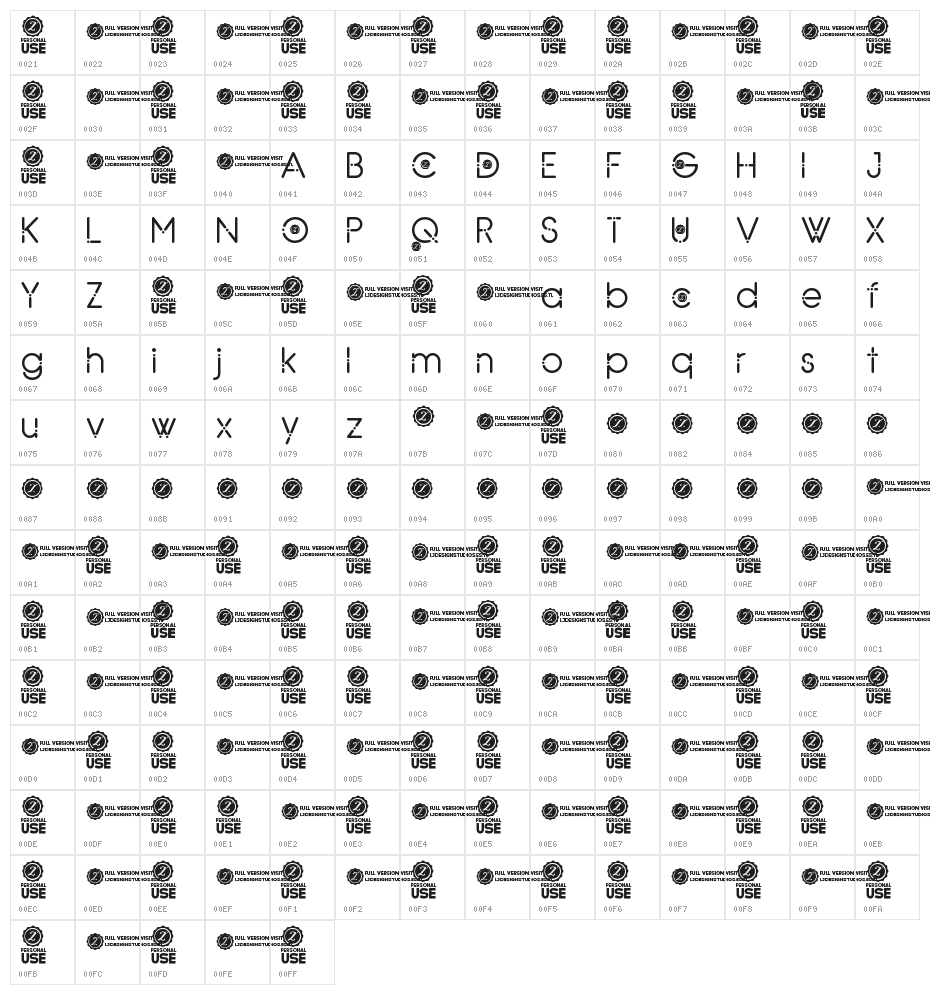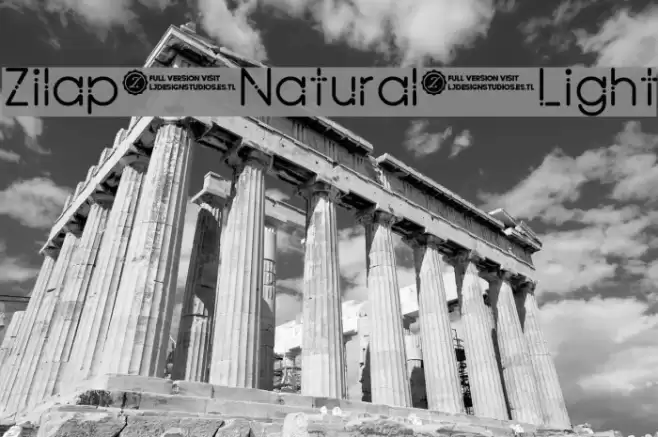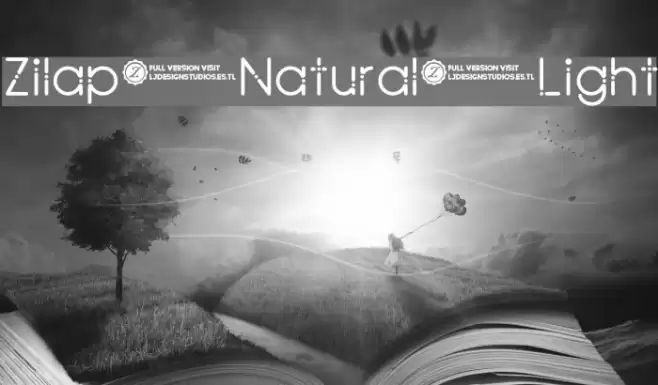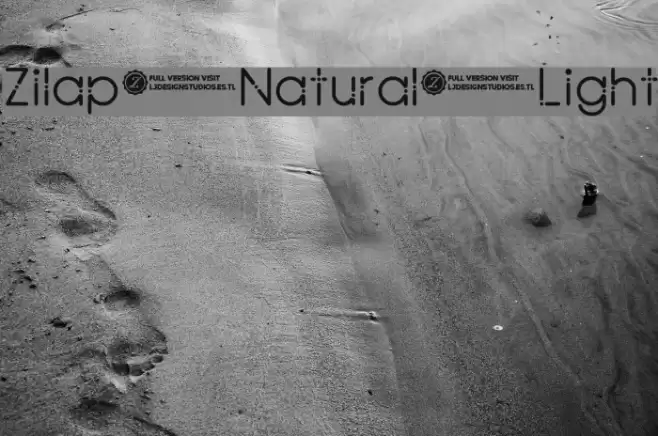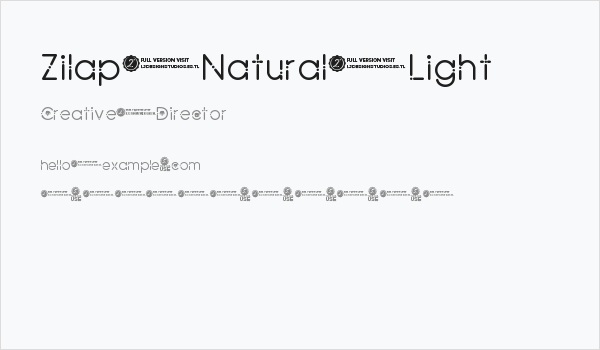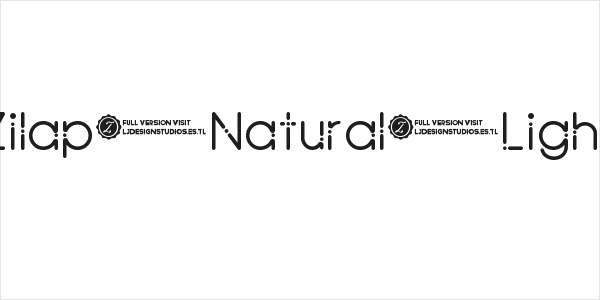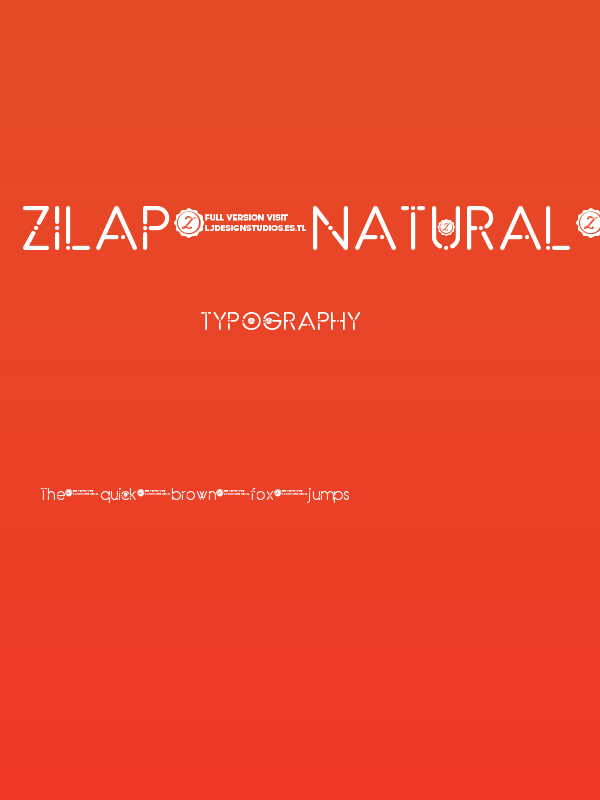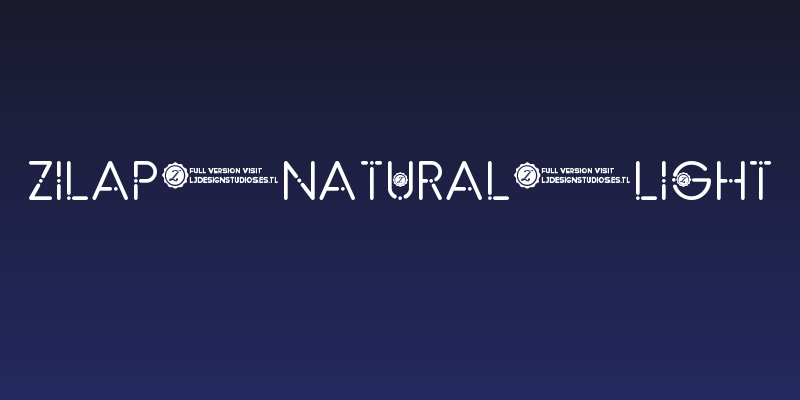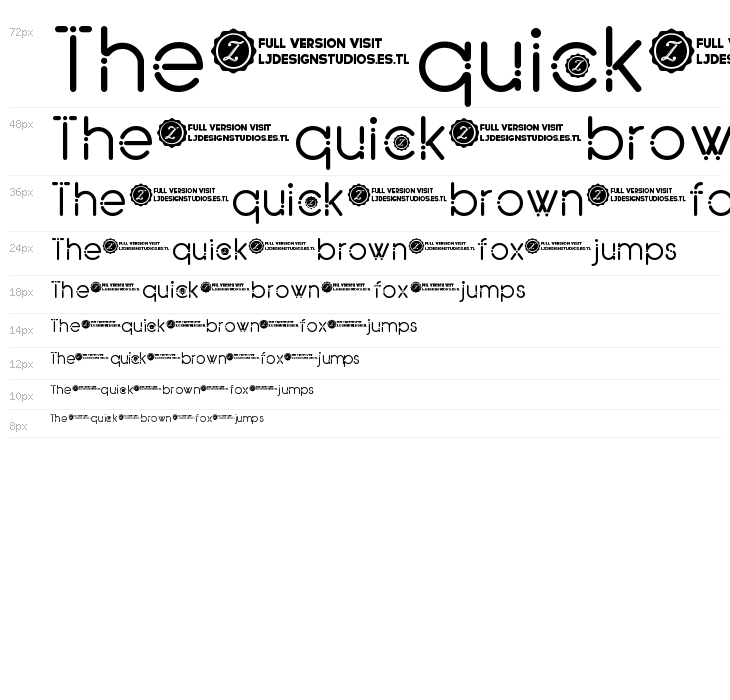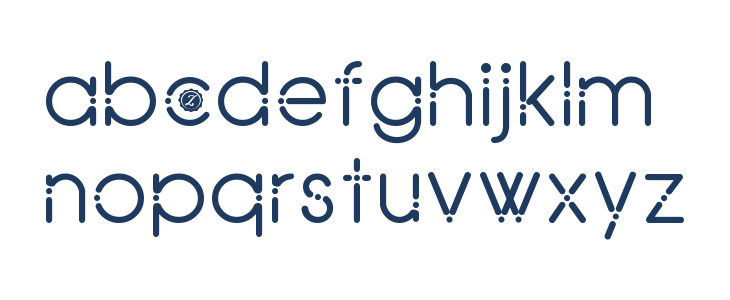
Zilap Natural Light Font
Zilap Natural Light Description
This font features a modern and innovative design with a unique geometric structure. Each character is crafted with a combination of circular and linear elements, creating a futuristic and tech-inspired appearance. The letters are evenly spaced, with a consistent stroke width that maintains readability while adding a decorative touch. The font's distinct style is accentuated by small circular cutouts within the characters, adding an element of intrigue and complexity. This design makes it suitable for creative projects that require a modern and stylish aesthetic.